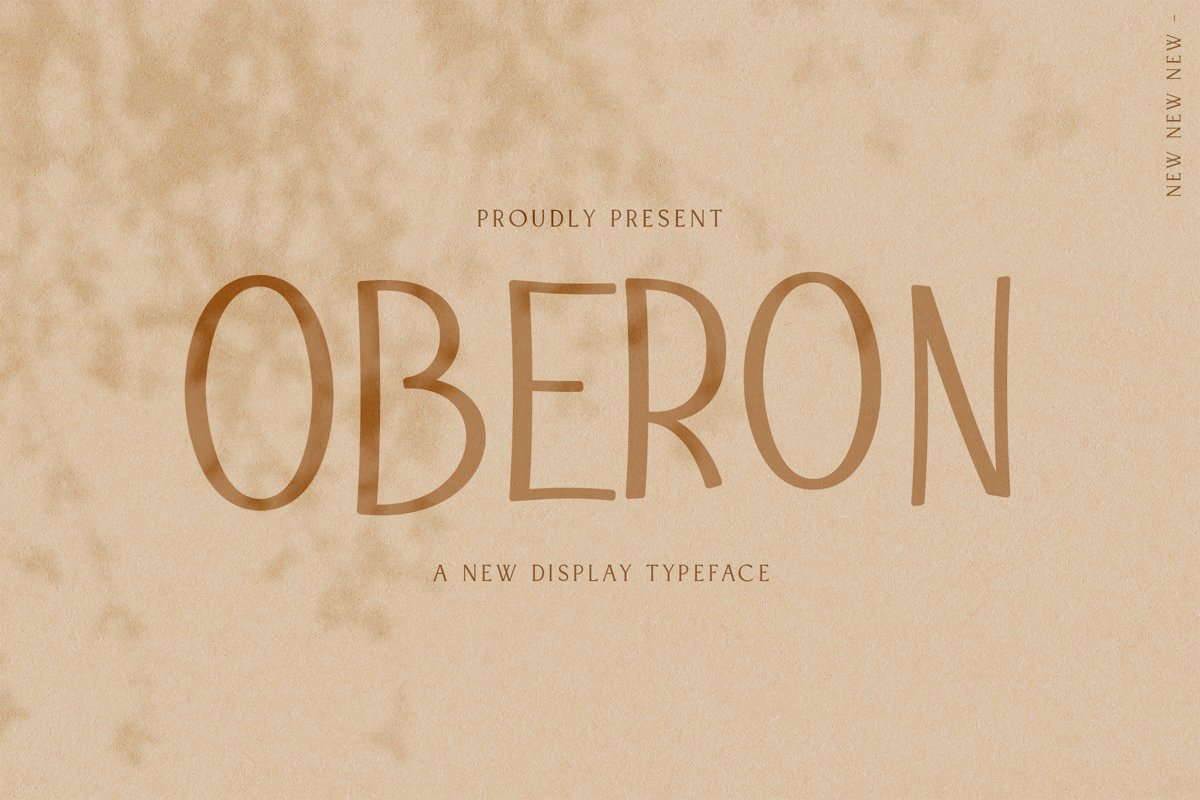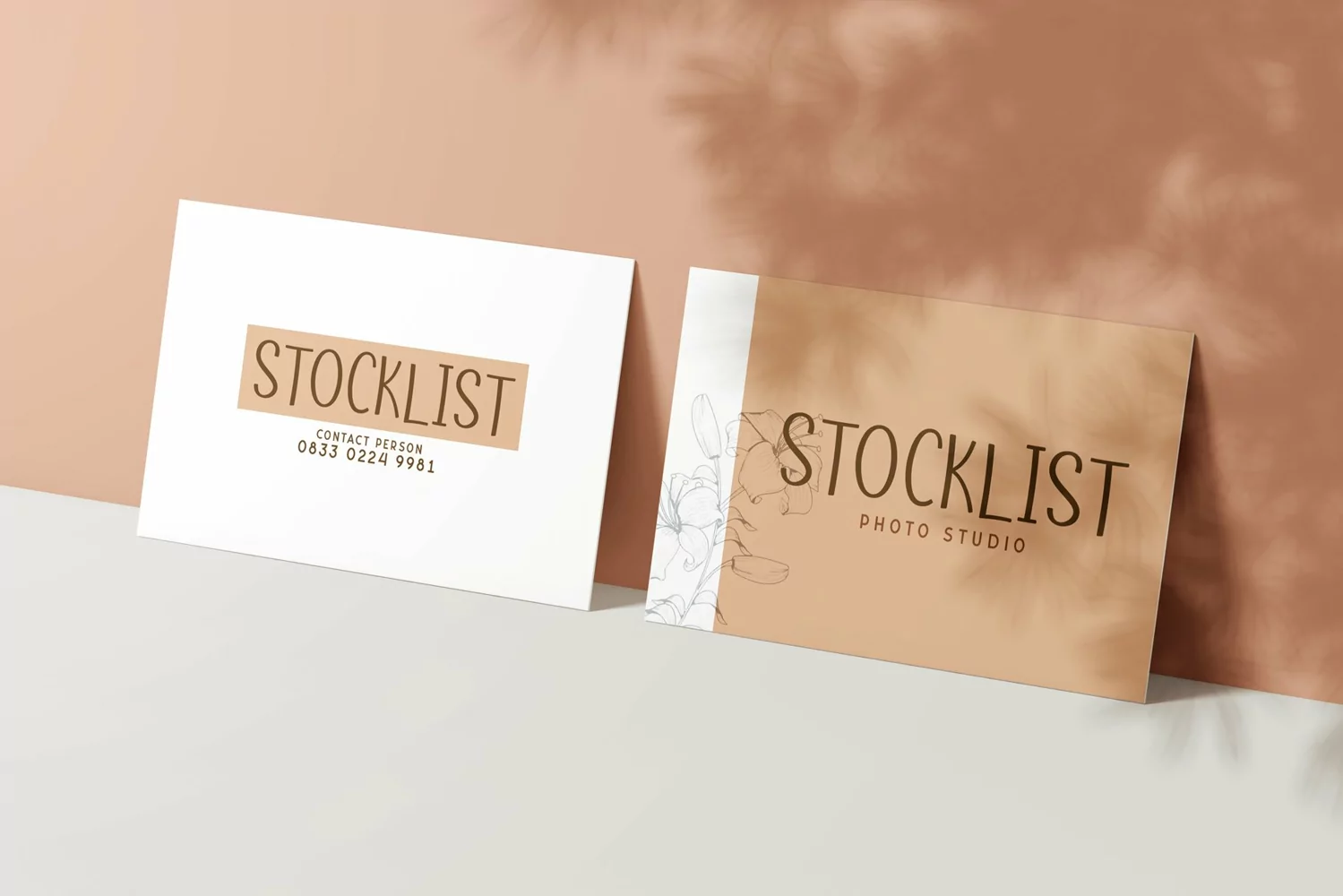
Oberon is a display typeface. Perfect for display, quotes, packaging, merchandise, business card, branding, header, tittle, florist needs, posters, pin, mug, pillow, crafting needs, and many more.
Oberon